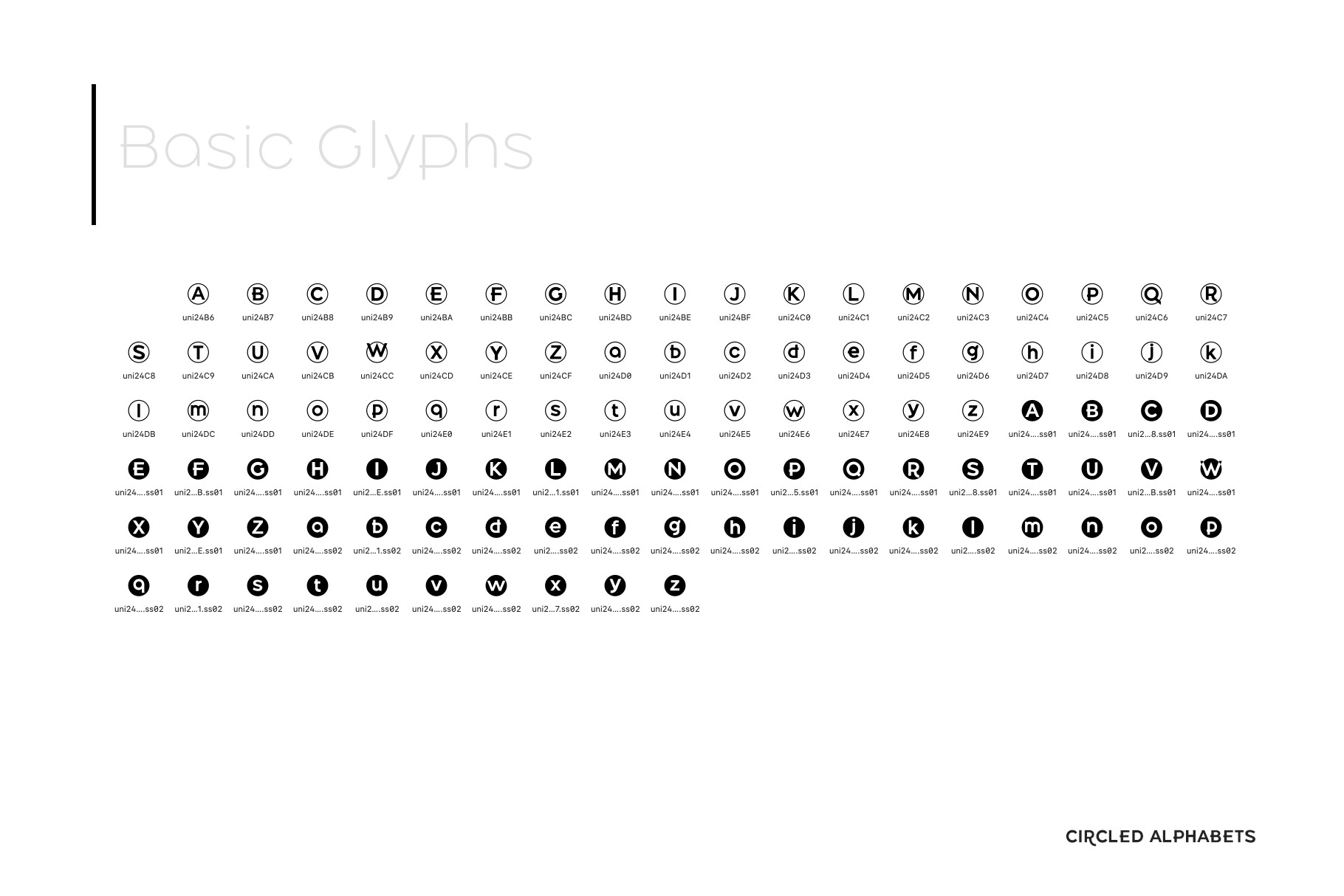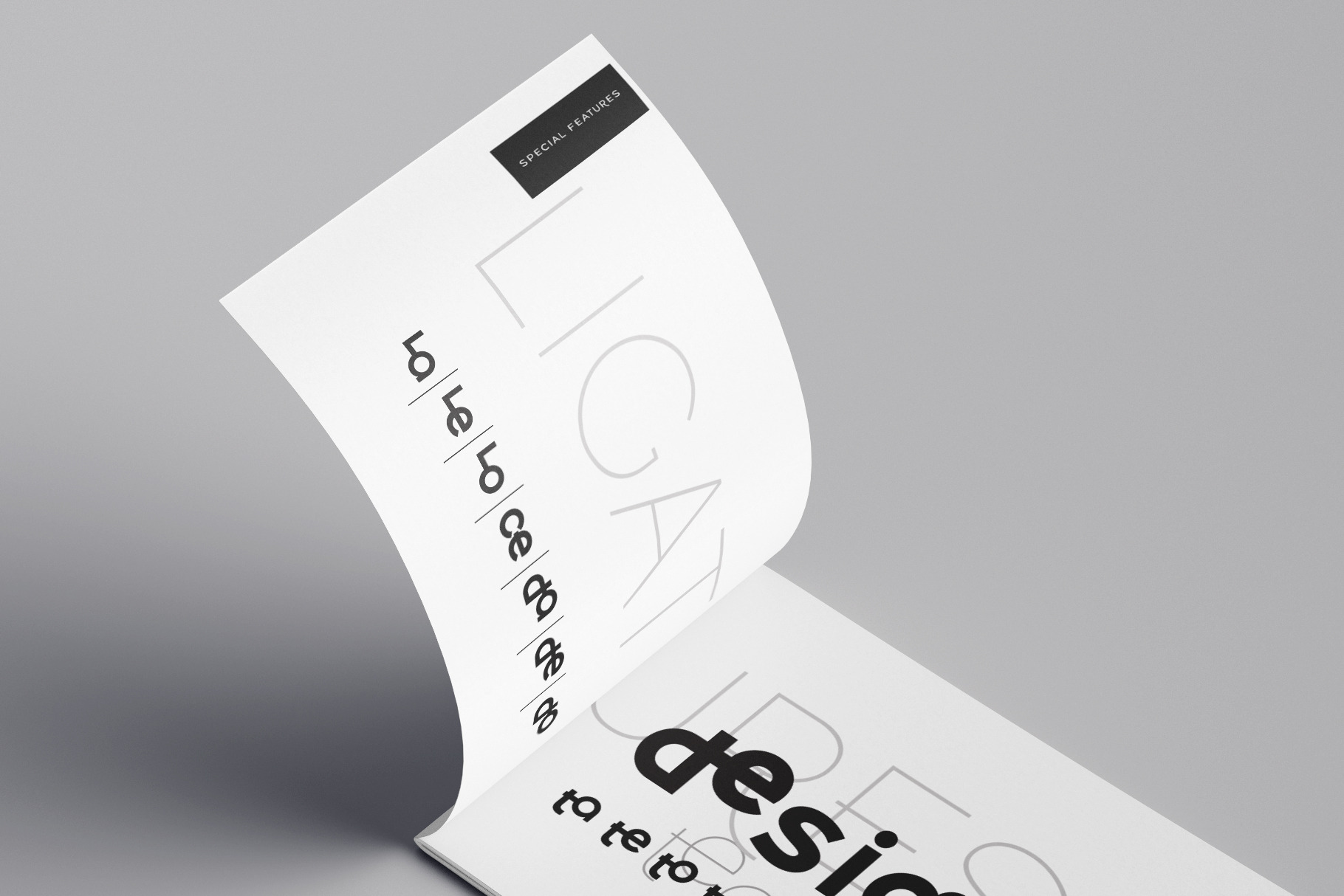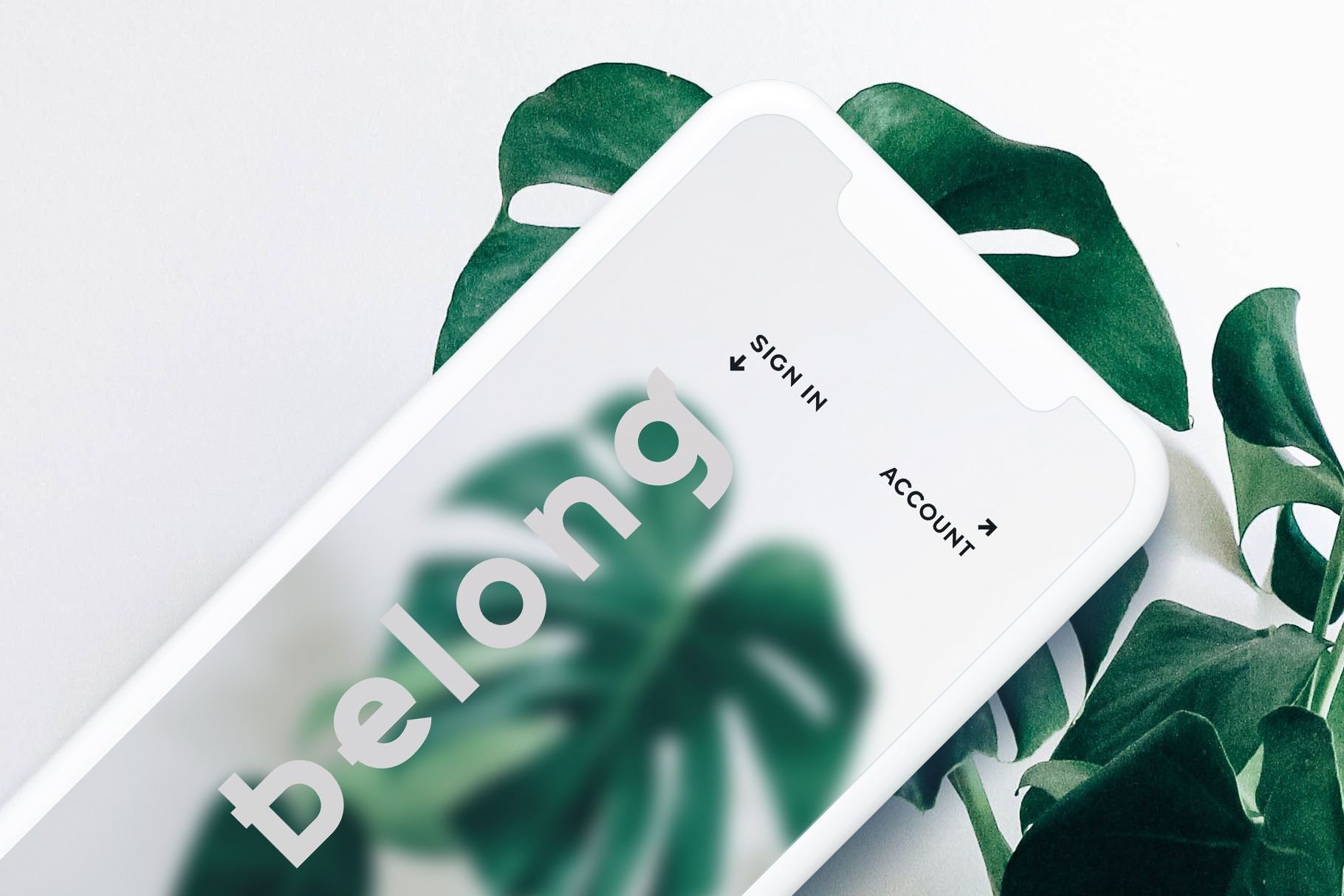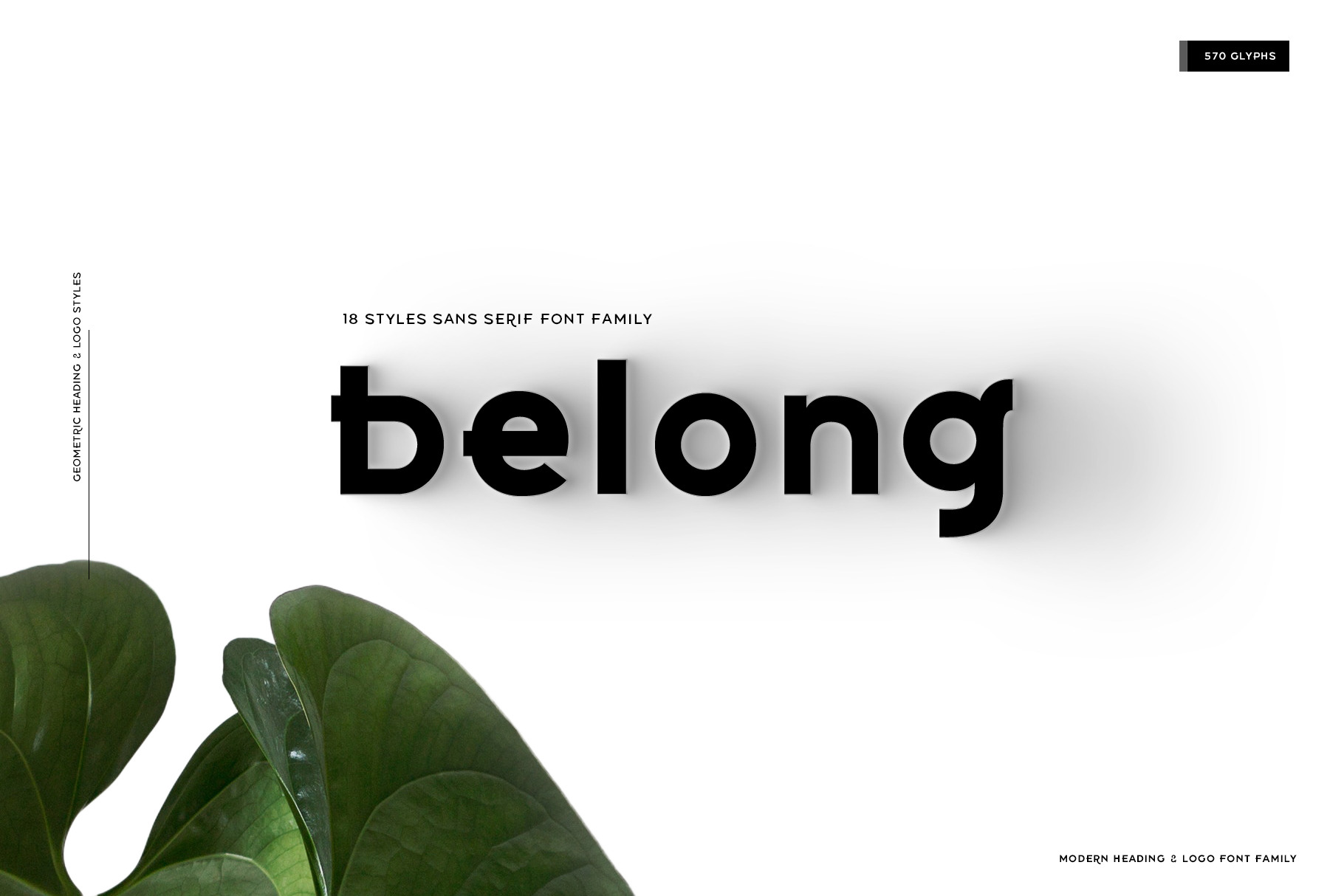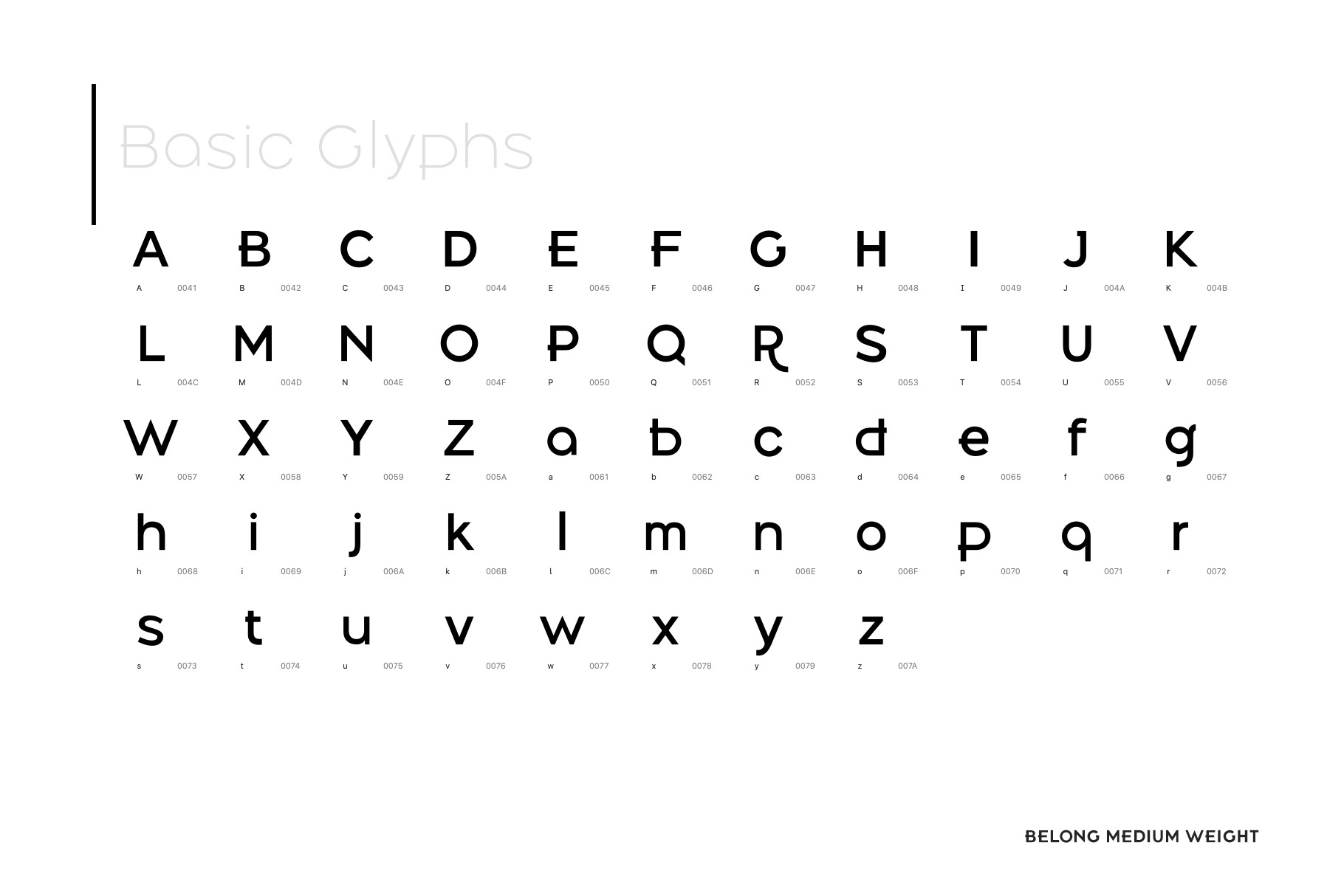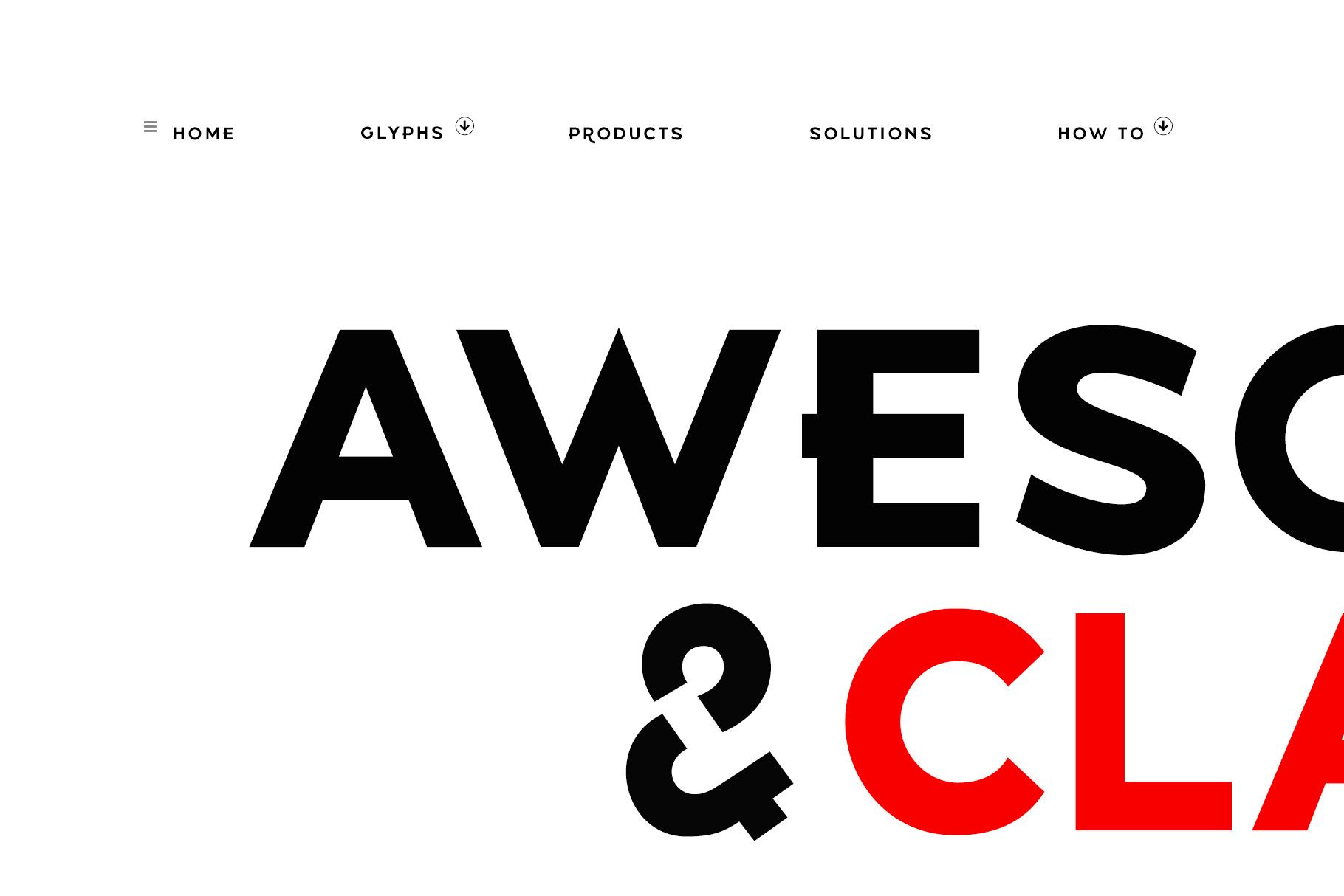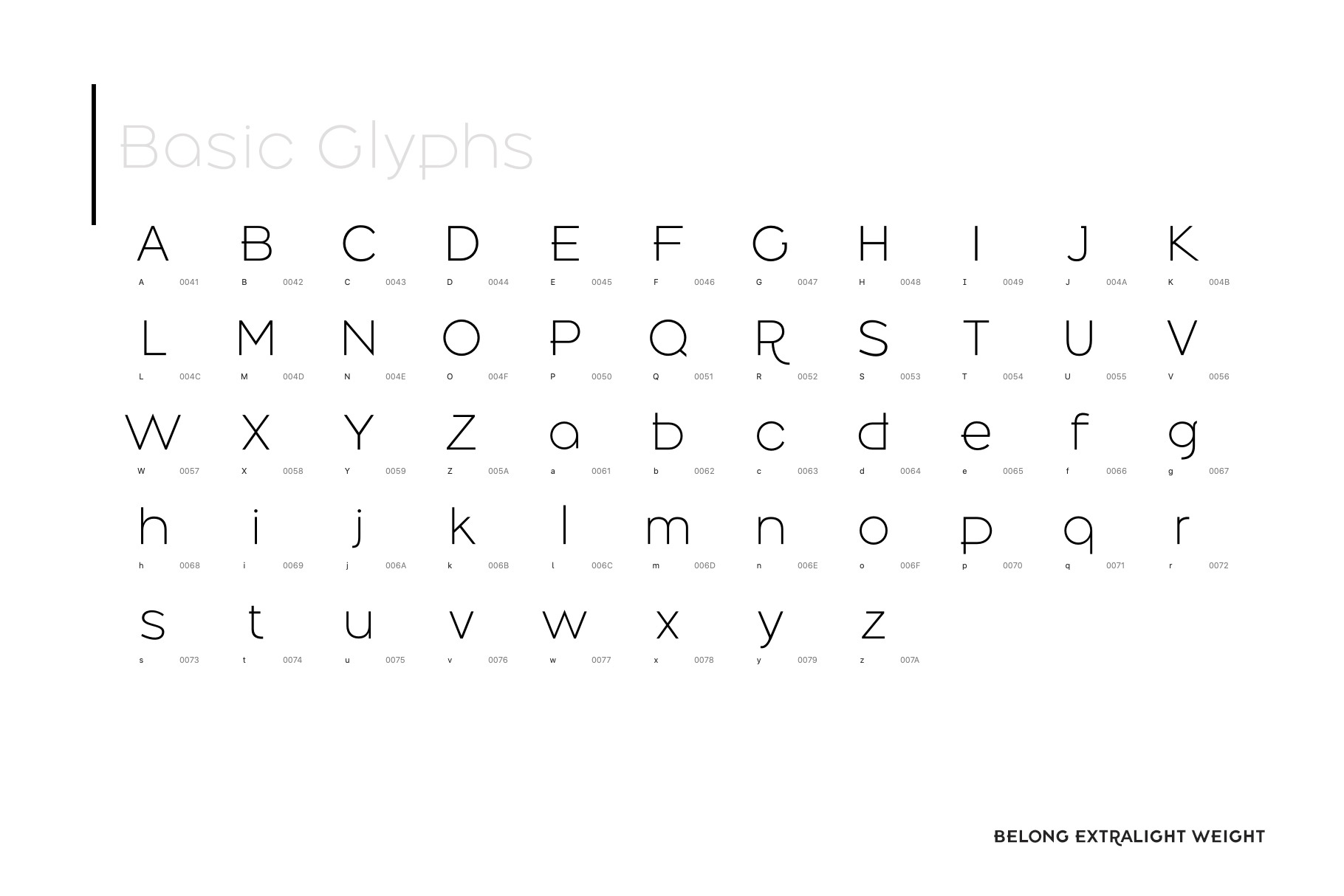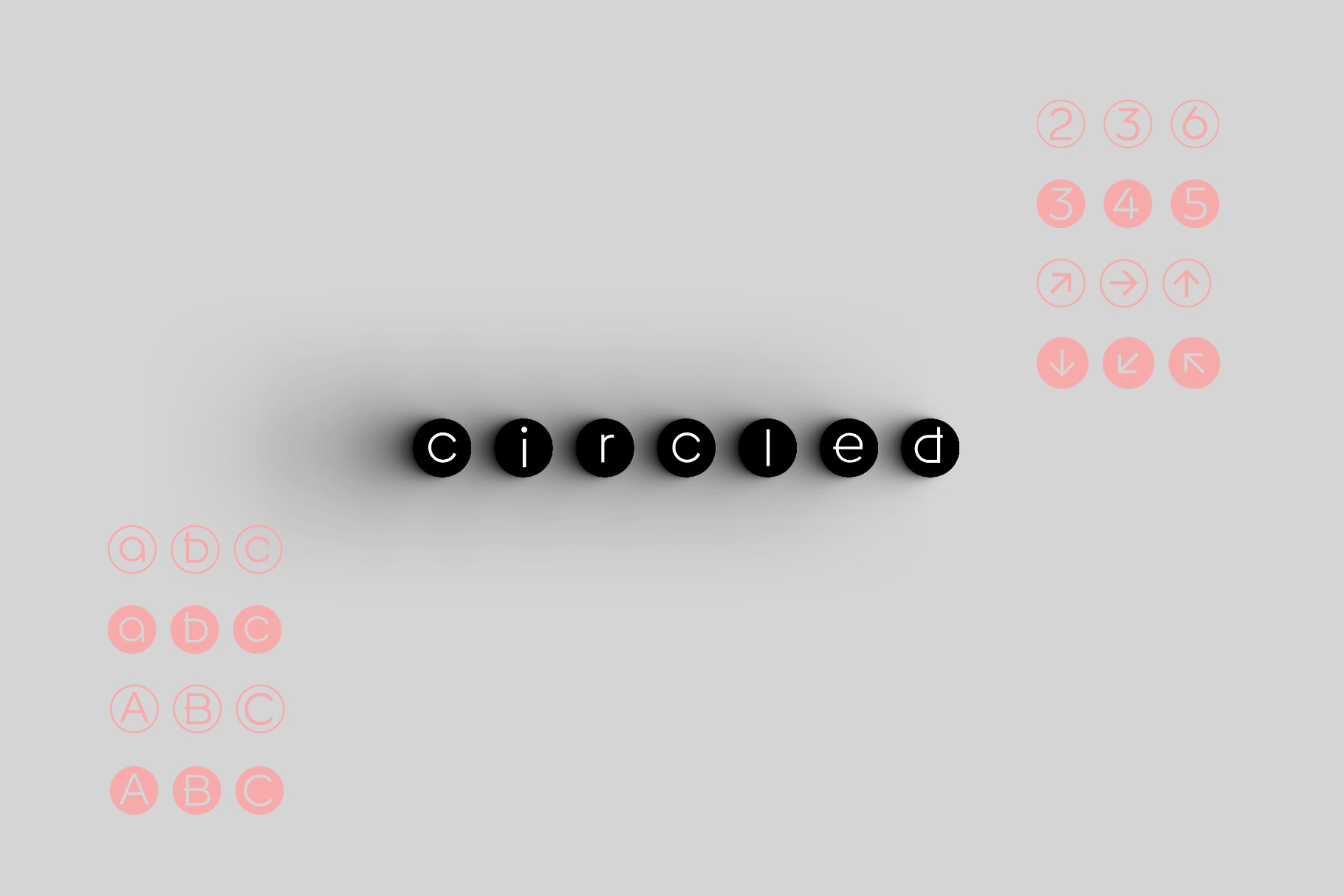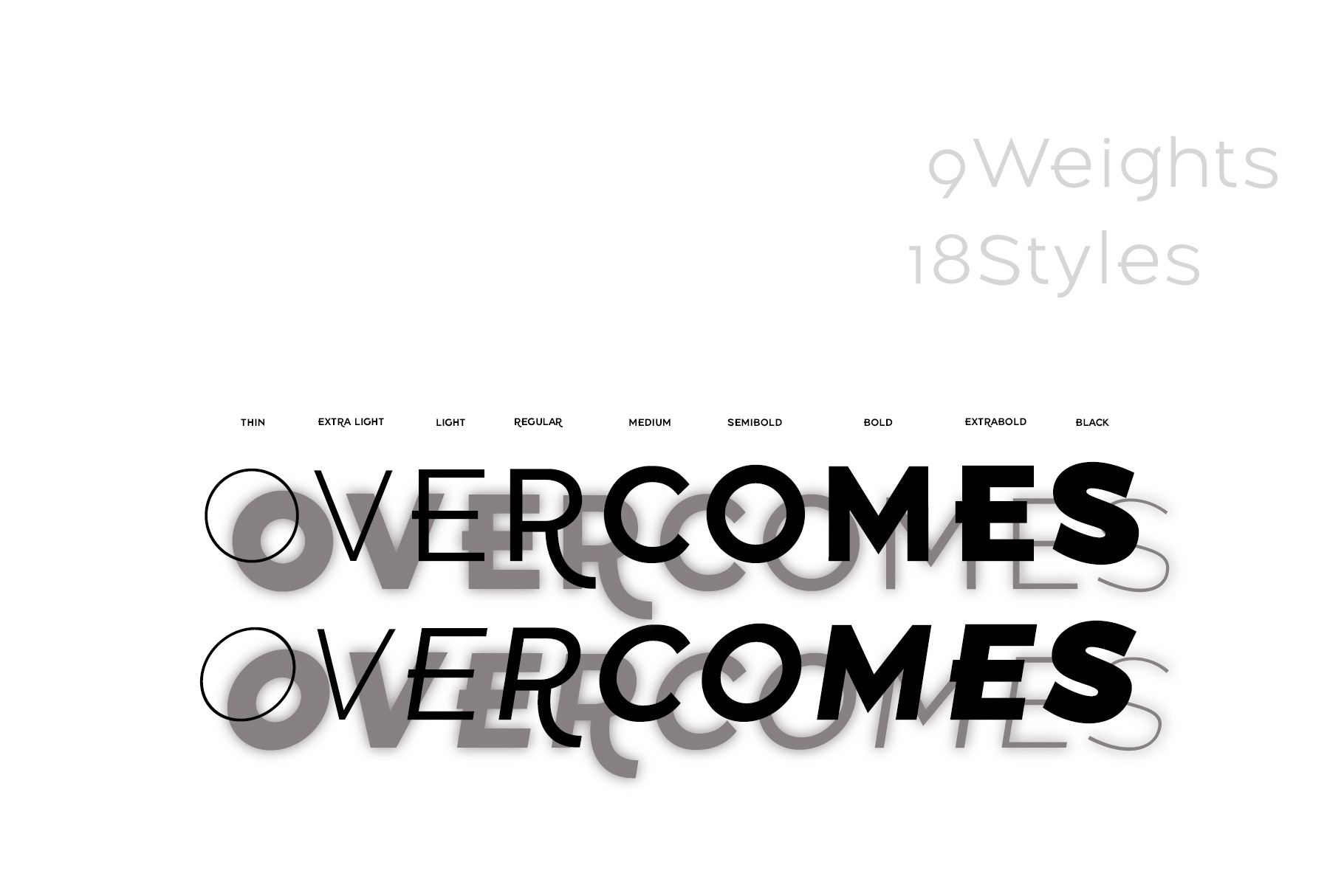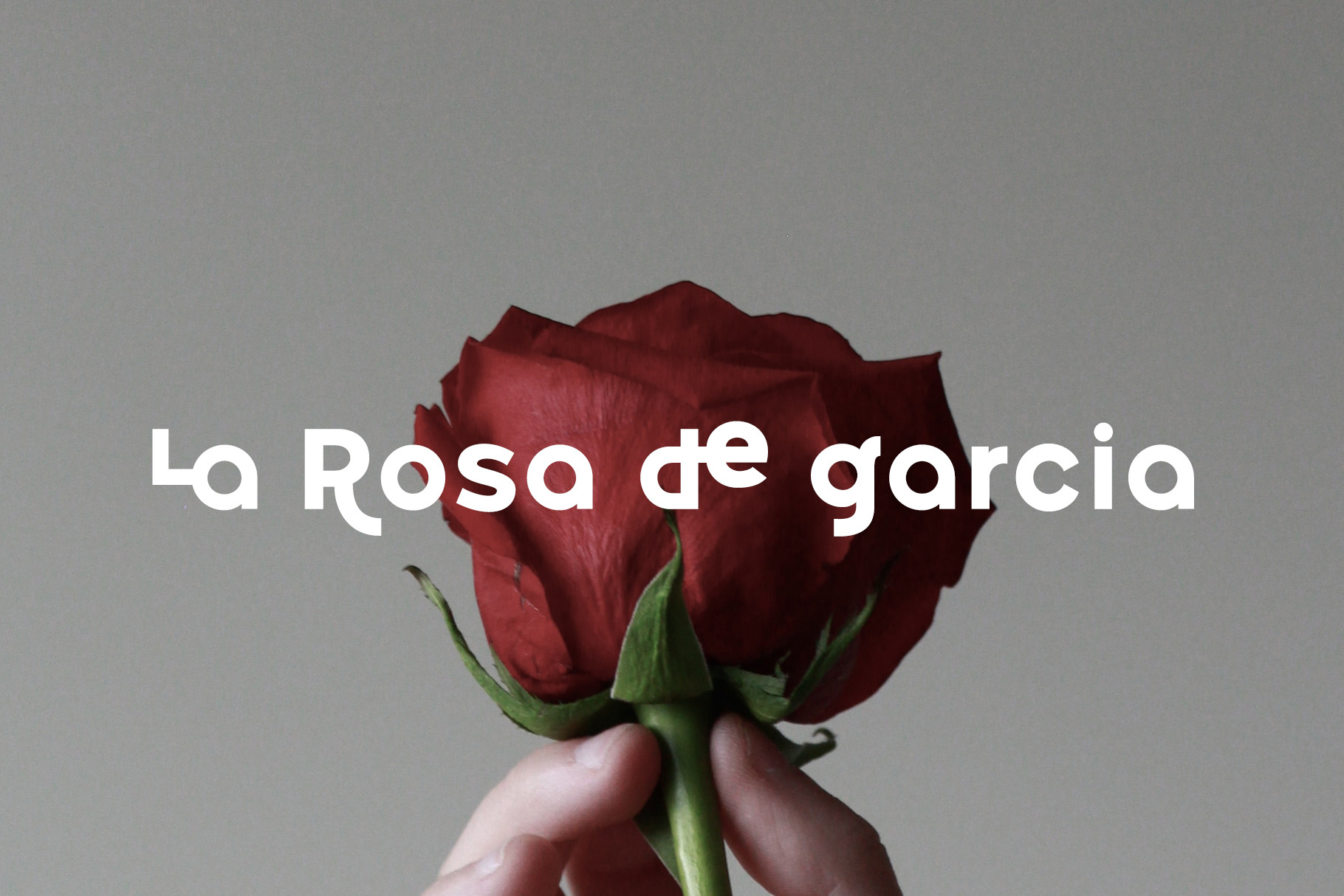
The Features of Belong Logo and Heading Font Family are that it have both readability and uniqueness. It touches to achieve uniqueness while conforming to the structure of the Sans Serif system. These harmonious intersections of the acclimations and deviations were applied to these fonts. As a result, these fonts can be used beautifully in any body and text area, not just the logo or title. In addition, circled glyphs will show originality in various emphasis and bullet areas. Convenience and creativity for professional designers will be shown up in various fields such as the editorial or APP design business. You try it too. Of course, free updates will be included OpenType Features - Kerning - Ligatures (La, Le, Lo, ce, da, de, do, fi, fl, ta, te, th, to, tt, THE) - Additional Numbers - Stylistic Sets - Fraction and More. Multilingual Support The Belong Sans Serif Font Family supports the following languages: - Albanian, Basque, Breton, Chamorro, Danish, Dutch, English, Faroese, Finnish, French, Frisian, Galician, German, Icelandic, Italian, Malagasy, Norwegian, Portuguese, Spanish, Alsatian, Aragonese, Arapaho, Arrernte, Asturian, Aymara, Bislama, Cebuano, Corsican, Fijian, French_creole, Genoese, Gilbertese, Greenlandic, Haitian_creole, Hiligaynon, Hmong, Hopi, Ibanag, Iloko_ilokano, Indonesian, Interglossa_glosa, Interlingua, Irish_gaelic, Jerriais, Lojban, Lombard, Luxembourgeois, Manx, Mohawk, Norfolk_pitcairnese, Occitan, Oromo, Pangasinan, Papiamento, Piedmontese, Potawatomi, Rhaeto-romance, Romansh, Rotokas, Sami_lule, Samoan, Sardinian, Scots_gaelic, Seychelles_creole, Shona, Sicilian, Somali, Southern_ndebele, Swahili, Swati_swazi, Tagalog_filipino_pilipino, Tetum, Tok_pisin, Uyghur_latinized, Volapuk, Walloon, Warlpiri, Xhosa, Yapese, Zulu, Latinbasic, Ubasic. | Belong Logo and Heading Font Family | Brenners